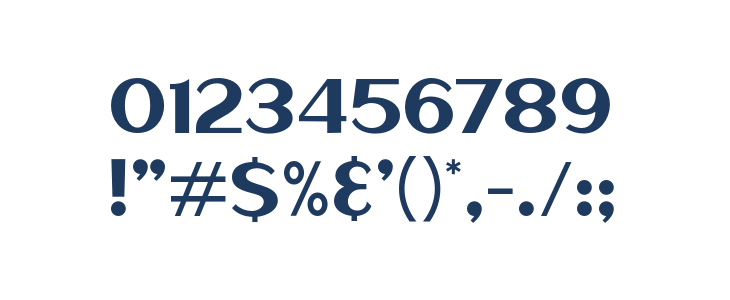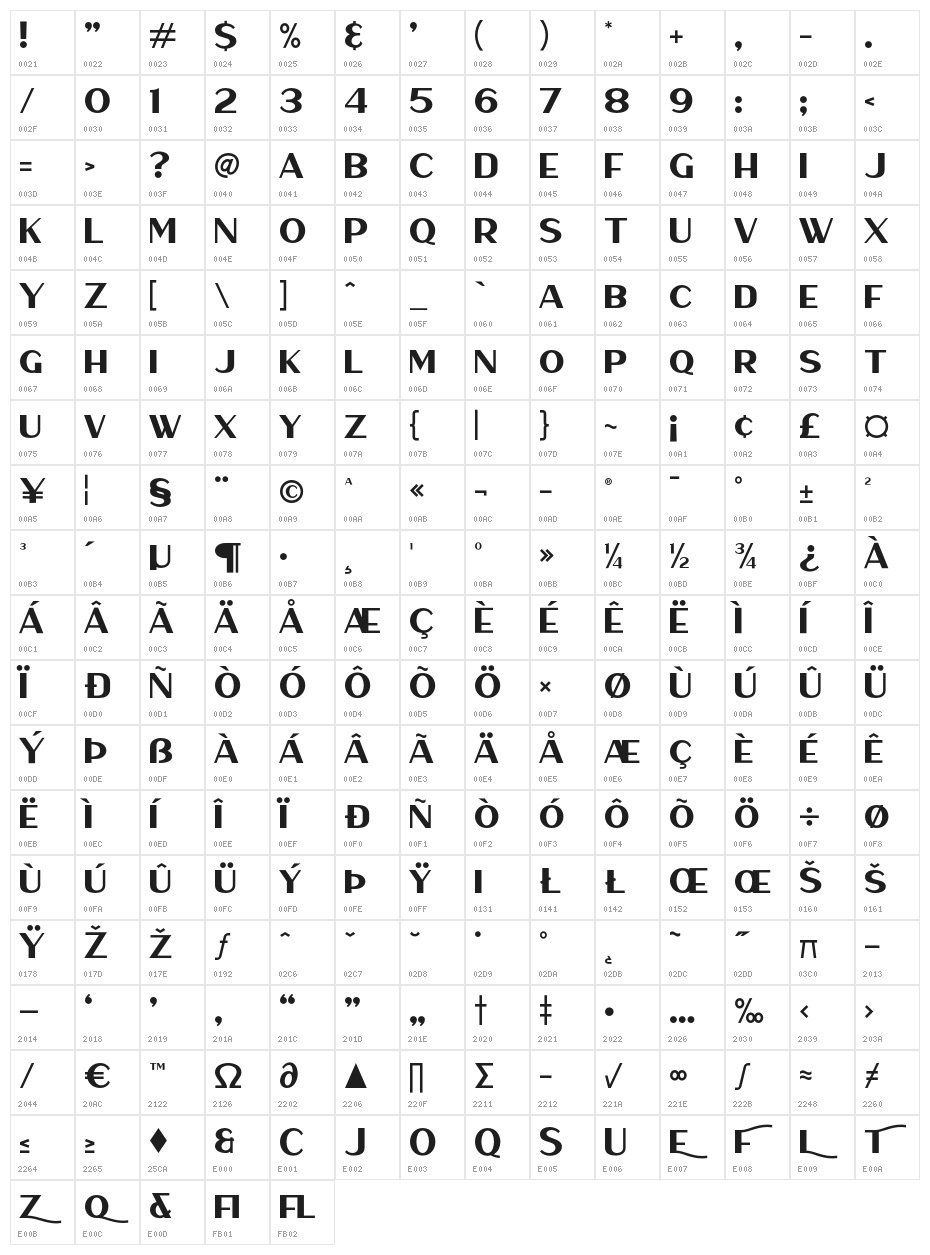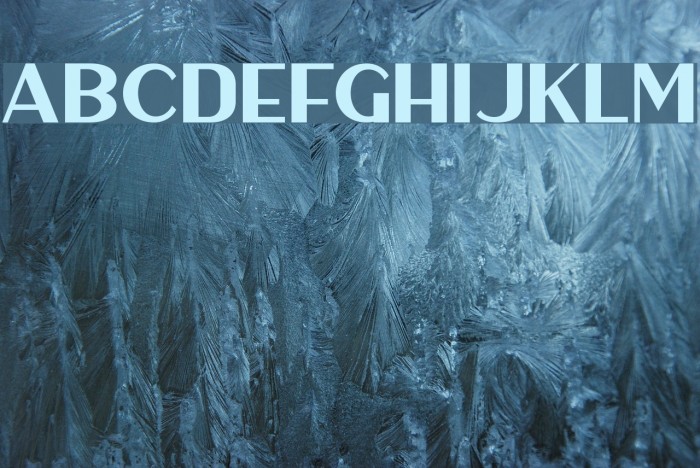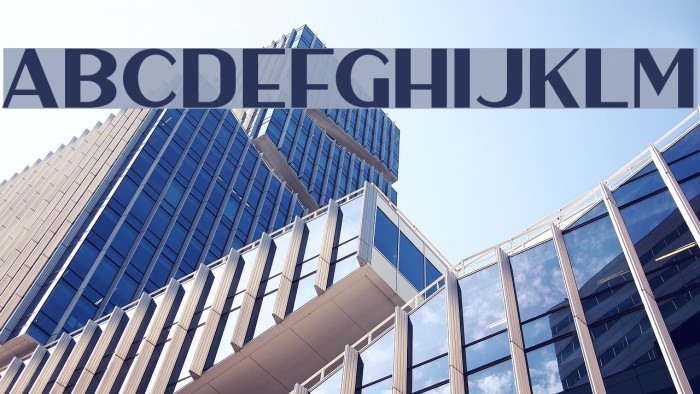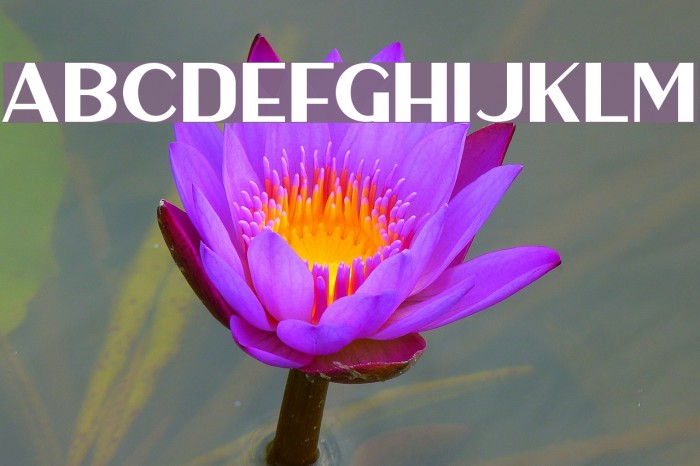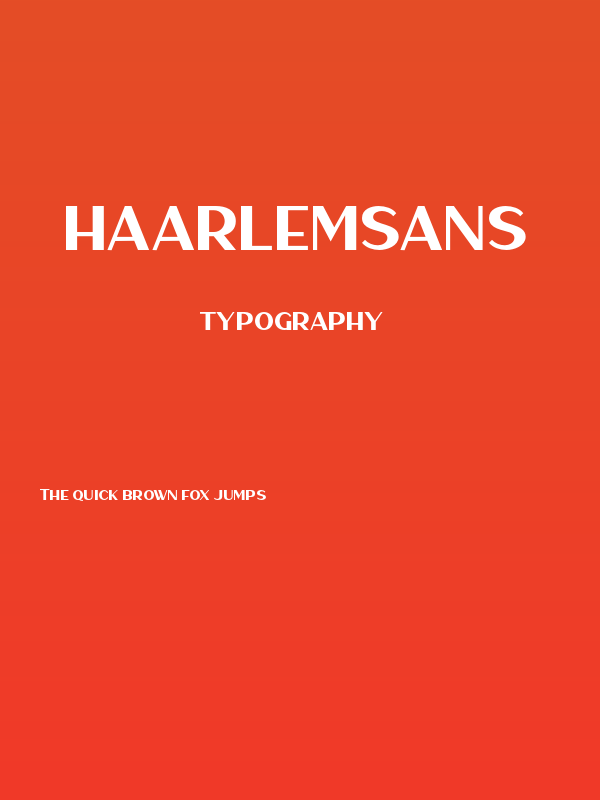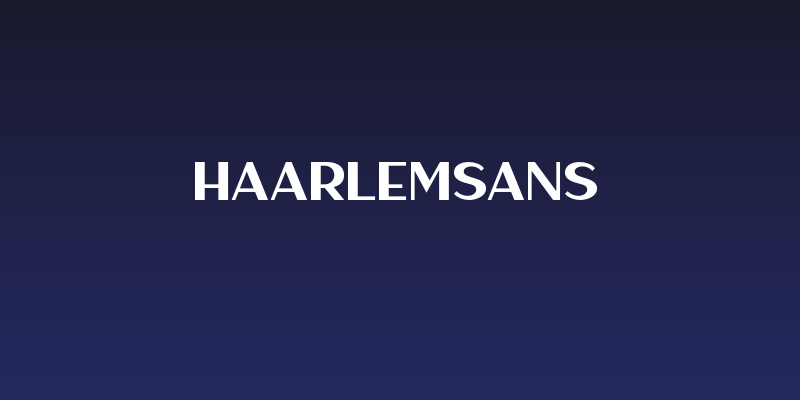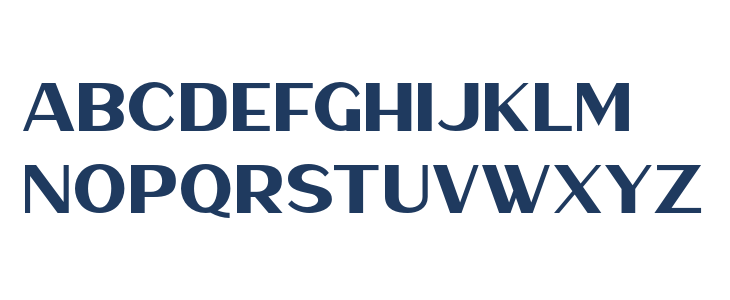
HaarlemSans Font
HaarlemSans Description
This typeface is a bold and striking sans-serif font, characterized by its clean lines and modern aesthetic. The uppercase letters are uniform in height, with a consistent stroke width that gives a strong and confident appearance. The lowercase letters maintain the same boldness, ensuring readability and impact. The numerals are clear and distinct, matching the overall bold style of the alphabet. Special characters are well-defined, adding versatility to the font. This font is ideal for making a statement, with its strong presence and contemporary design.
| Proposed Projects | Ideal for branding, advertising, headlines, and any project requiring a modern and impactful typeface. |